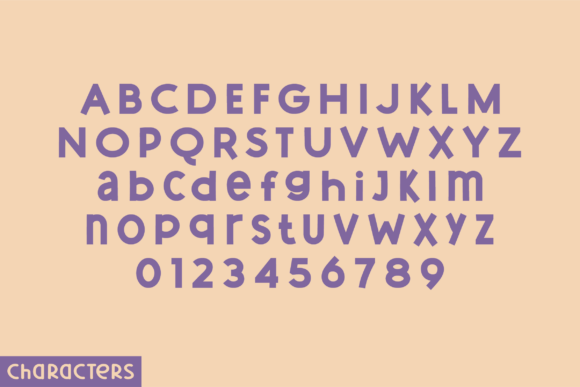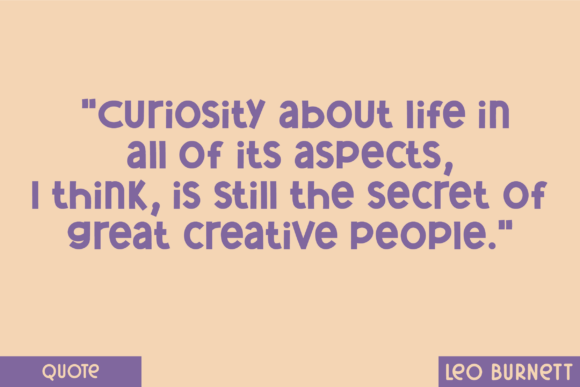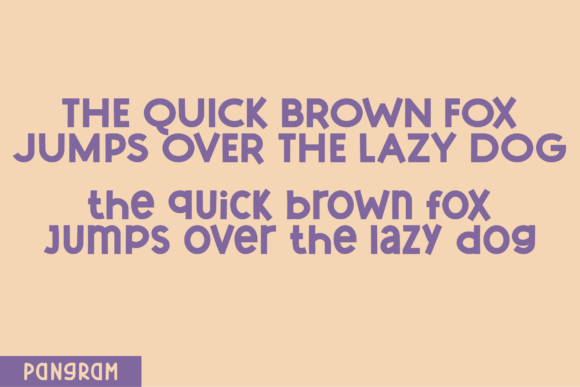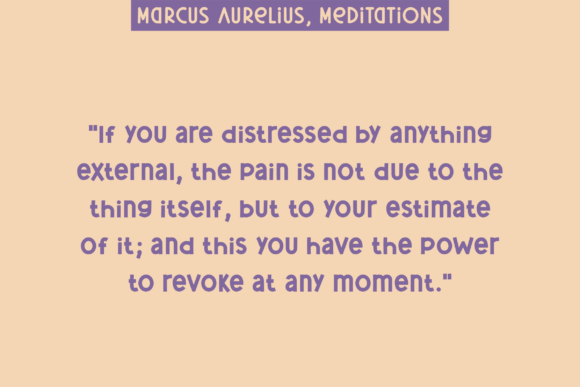
The Birth of a Unique Font: Bellarize
Have you ever stared at a blank page, waiting for inspiration to strike? The cursor blinks, and suddenly, a burst of creativity hits you. You start typing, and the words flow effortlessly. This is what happened to designers when they laid eyes on the Bellarize Font. A natural sans serif font that effortlessly adds a touch of elegance to any project.
The Bellarize Font is more than just a font – it’s a game-changer. Its unique design allows it to blend seamlessly into any project, from quotes and notes to product designs and more. With its natural feel and modern aesthetic, this font is a valuable addition to any designer’s toolkit. Whether you’re a seasoned pro or just starting out, the Bellarize Font is sure to inspire your next creative project.
Bellarize Font Key Features
- Font Family: Bellarize Font is available in 6 font families, each with unique characteristics and styles.
- Character Set: Bellarize Font includes a comprehensive set of characters, including Latin, Cyrillic, and Greek alphabets, as well as punctuation and symbols.
- Unique Characteristics: Bellarize Font features a unique, hand-crafted design with intricate details and subtle nuances, making it ideal for creative and design-intensive projects.
Bellarize Font Review
Overall, I’m really impressed with the Bellarize Font. It’s a great addition to any design project that needs a modern and elegant touch. ✨ The font’s unique blend of sans-serif and script elements creates a visually appealing contrast that’s perfect for headings and titles.
Here are some specific things that work well:
- The font’s high x-height makes it easy to read, even at small sizes.
- The bold weight is perfect for creating a strong visual impact.
- The font is highly legible, even when used in body text.
However, there are a few limitations to be aware of:
- The font may not be the best choice for projects that require a lot of fine typography, as the letterforms can be a bit loose and uneven.
- The font’s script elements can be a bit tricky to pair with other fonts, as they have a strong character set.
- The font may not be suitable for projects that require a lot of text, as it can become overwhelming when used extensively.
Overall, I’d say that Bellarize Font is a great choice for designers who want to add a touch of elegance and sophistication to their projects. With a few minor limitations in mind, it’s a great addition to any design library.
What is the recommended line height for using the Bellarize Font?
The recommended line height for the Bellarize Font is 1.2 to 1.5 times the font size. For example, if you’re using 14-point text, a line height of 16.8 to 21 points would be suitable. This will help maintain readability and prevent text from becoming too dense or too sparse.